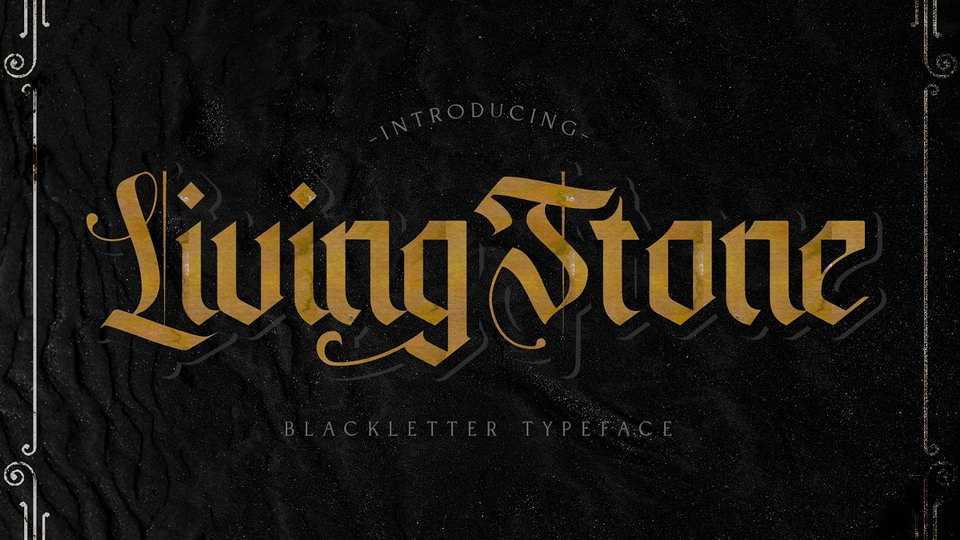
Download Livingstone font, a unique decorative blackletter typeface. Livingstone is suitable for use in various projects such as gothic lettering, tattoo, headlines, posters, magazines, newspapers, t-shirts, labels, and every other design which needs a striking typeface.